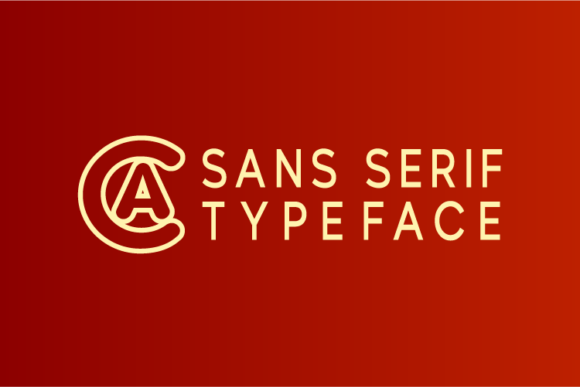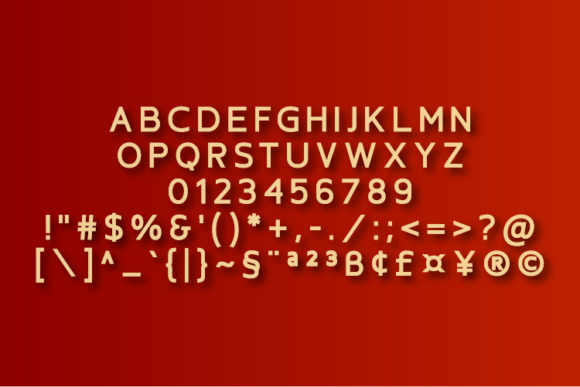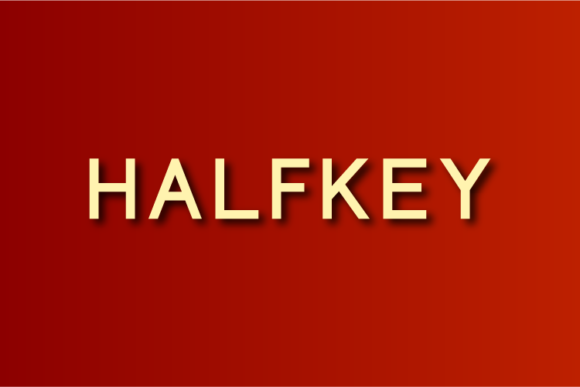
Introducing Halfkey Font: Elevate Your Designs with Modern Elegance
In the world of typography, a font can make or break a design. For designers and crafters looking for a modern, classy sans serif typeface, Halfkey Font is an exceptional choice. This versatile font is designed to cater to a wide range of creative projects, from logos and wedding invitations to advertisements and magazine layouts. In this article, we’ll explore the features and benefits of Halfkey Font, and why it’s becoming a go-to choice for designers seeking elegance and sophistication.
What is Halfkey Font?
Halfkey Font is a contemporary sans serif typeface that boasts a clean and refined aesthetic. It includes a comprehensive set of characters, featuring upper case letters, numbers 0-9, and a variety of punctuation and symbols. This extensive character set ensures that designers have the flexibility to use Halfkey Font in a multitude of design applications.
Key Features of Halfkey Font
- Modern and Classy Design: Halfkey Font’s sleek and sophisticated design makes it perfect for projects that require a touch of elegance.
- Comprehensive Character Set: The font includes upper case letters, numbers, punctuation, and symbols, providing everything needed for a wide range of design projects.
- Versatility: Halfkey Font is suitable for various applications, including logos, weddings, invitations, quotes, advertisements, print materials, magazines, and more.
- Easy to Read: The clear and legible design of Halfkey Font ensures that your message is conveyed effectively, making it ideal for both digital and print media.
Use Cases for Halfkey Font
Halfkey Font’s versatility is one of its standout features. Here are some of the many ways you can use this exceptional font:
- Logo Design: Create a lasting impression with a modern and sophisticated logo that incorporates Halfkey Font.
- Wedding Invitations and Stationery: Add a touch of elegance to your wedding invitations, save-the-date cards, and other stationery.
- Advertising and Marketing: Use Halfkey Font in your advertisements, brochures, and marketing materials to convey a sense of style and sophistication.
- Magazine and Newspaper Layouts: Halfkey Font is perfect for article headings, subheadings, and body text in magazines and newspapers.
- Digital Media: Use Halfkey Font in your website designs, social media graphics, and digital marketing materials to create a cohesive brand image.
Why Choose Halfkey Font?
With so many fonts available, why should you choose Halfkey Font for your design projects? Here are a few compelling reasons:
- Unique and Modern Design: Halfkey Font offers a fresh and contemporary look that will set your designs apart.
- Highly Versatile: The font’s extensive character set and clear design make it suitable for a wide range of applications.
Halfkey Font is a modern, classy sans serif typeface that offers a unique blend of style, versatility, and elegance. Whether you’re a designer or crafter looking for a font that can elevate your projects, Halfkey Font is an exceptional choice. With its comprehensive character set, clear design, and wide range of applications, Halfkey Font is sure to become a staple in your design toolkit. So why wait? Discover the creative possibilities with Halfkey Font today!